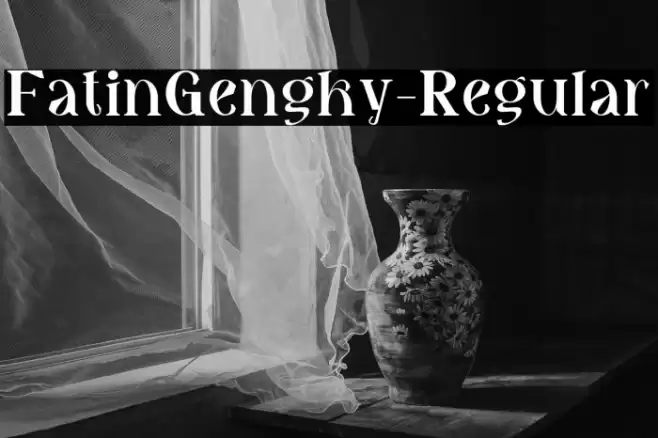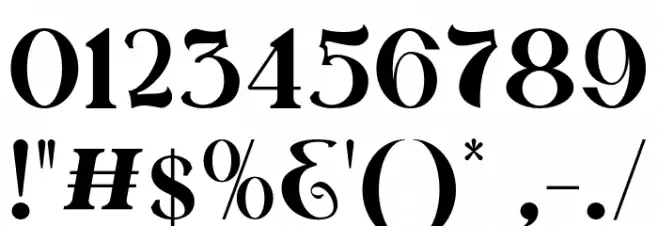
FatinGengky-Regular Font
FatinGengky-Regular Description
This font features a distinctive blend of classic and modern elements, characterized by its bold, high-contrast strokes and elegant serifs. The uppercase letters are strong and commanding, while the lowercase letters maintain a graceful flow, making it versatile for various design needs. The numerals are equally bold, ensuring readability and impact. Special characters are crafted with attention to detail, adding to the font's overall sophistication. Its unique style makes it suitable for projects that require a touch of elegance and modernity.
A bold, high-contrast serif font with a blend of classic and modern elements from Uncategorized fonts.
- Proposed Projects: Ideal for branding, editorial design, luxury packaging, and elegant invitations.
- Use Case: Headlines, Logos, Editorial Design